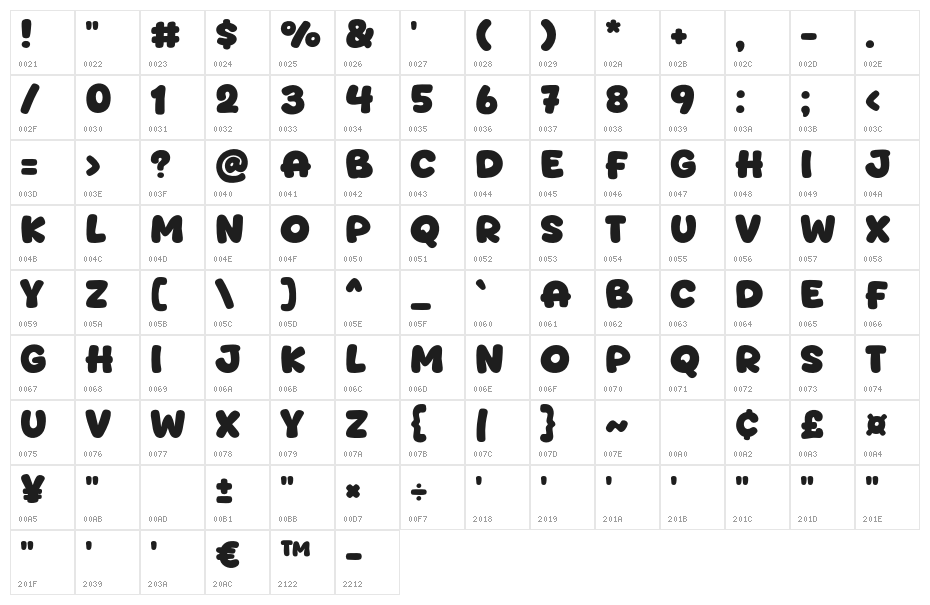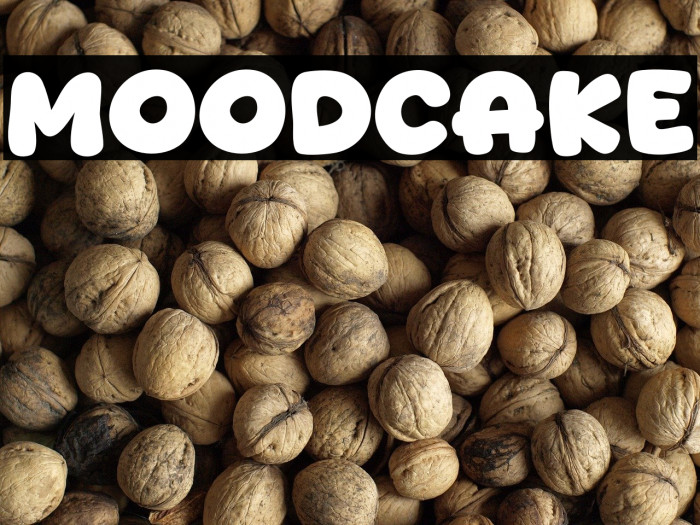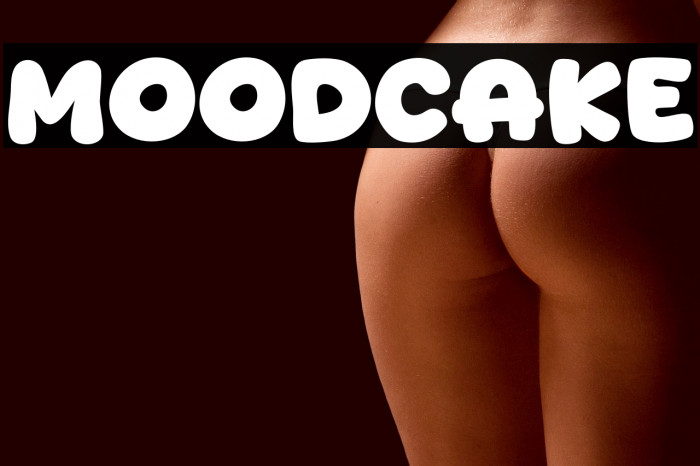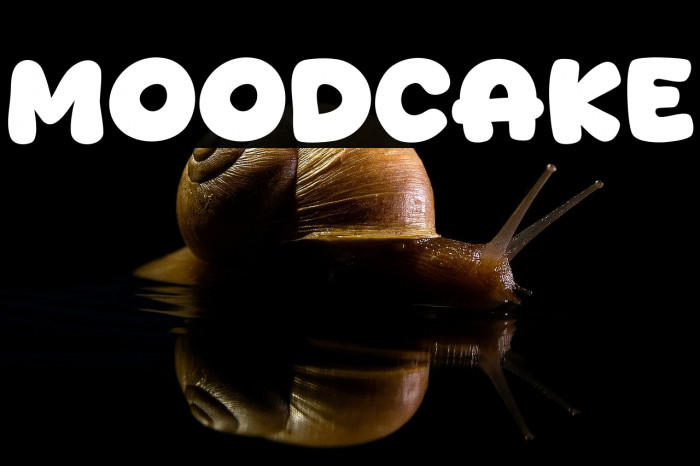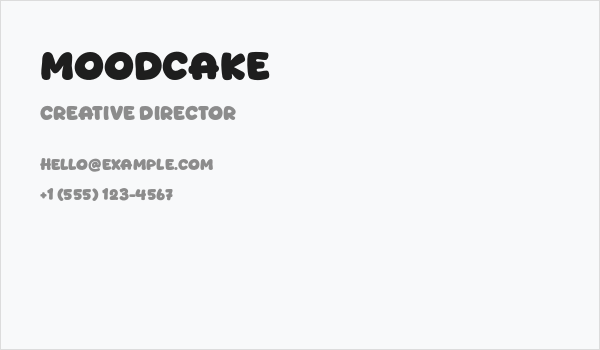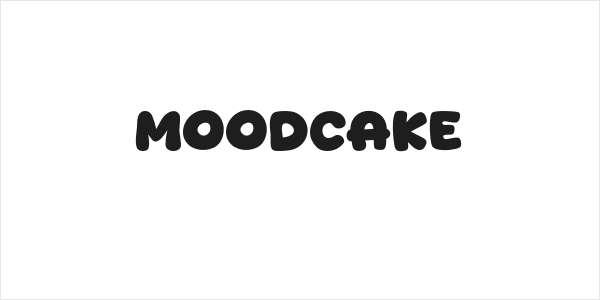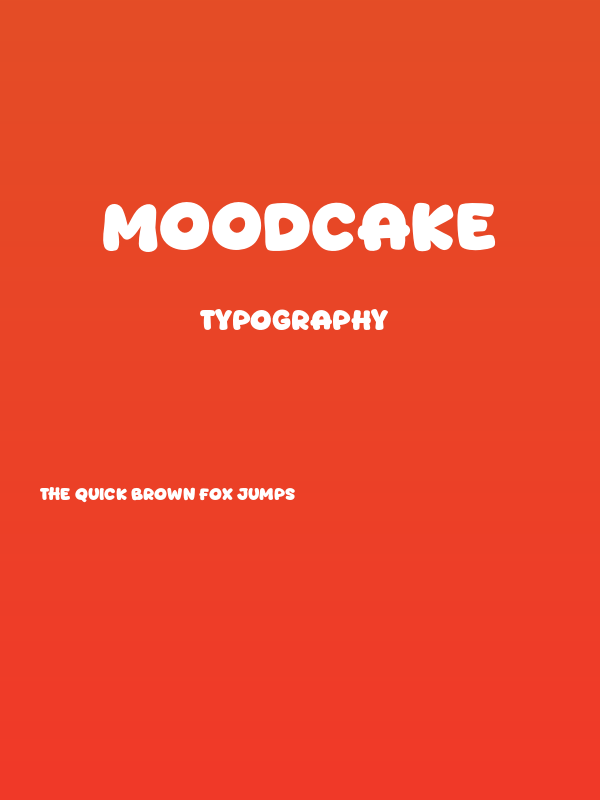
Moodcake Font
Moodcake Description
This playful and bold font features rounded, bubbly characters that convey a sense of fun and whimsy. The thick strokes and soft edges give it a friendly and approachable appearance, making it ideal for designs that aim to capture attention with a lighthearted tone. The uniformity in stroke width ensures a consistent look across all characters, while the slightly condensed spacing between letters adds to its compact and cohesive feel. This font is perfect for projects that require a touch of personality and charm.
| Proposed Projects | Ideal for children's books, playful branding, party invitations, and fun social media graphics. |